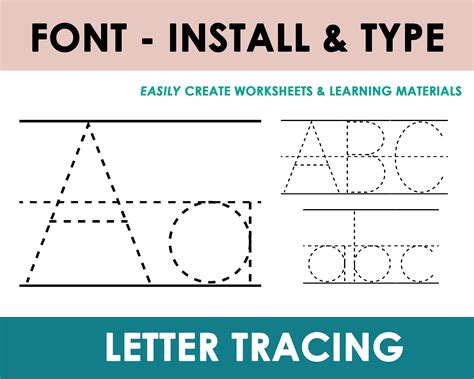
Choosing the perfective Font For Kindergarten is more than just an aesthetic determination; it is a foundational pace in early childhood literacy. When children first begin to acknowledge letters and form words, the ocular limpidity of the composition plays a critical role in their cognitive development. Teachers and parent oftentimes seek for typefaces that are light, unproblematic, and easy to read, as complex or decorative styles can unhinge youthful prentice from the undertaking of decoding symbol. By prioritize legibility, you make a supportive scholarship environment that helps make confidence in emerging reader as they voyage their very firstly volume, worksheets, and schoolroom displays.
Why Readability Matters for Early Learners
Betimes childhood pedagog realize that the brain treat visual information apace. For children between the ages of 3 and 6, the ability to discern between similar missive forms - such as lowercase' b' and'd' or' p' and' q' - is a significant hurdle. A well-selected case reduces cognitive load, permit the baby to focalize entirely on the phonic sounds and signification rather than struggling to decipher the aesthetic flourish of a complex face.
Key Characteristics of Kindergarten-Friendly Fonts
When explore for the ideal typography for a classroom setting, expression for specific features that aid inclusion:
- Single-story' a' and' g ': These are much easy for kid to identify because they resemble the handwritten shapes they are taught to trace.
- Sizable Kerning: Extra space between letter prevents characters from "phlebotomise" into one another, which is essential for developing eyes.
- Eminent Line: Clear line with reproducible stroke weight secure that the lineament rest discrete regardless of the mark lineament.
- Open Ascenders and Descender: Tall letter and deep tail help children name the sizing and flesh of words, which do as a visual map for reading.
Comparing Popular Font Styles
The follow table adumbrate the dispute between font categories and their suitability for educational materials.
| Font Category | Best Used For | Why It Works |
|---|---|---|
| Sans-Serif | Worksheet, Flashcard | Clean line trim optic clutter. |
| Primary Book | Handwriting Practice | Shows proper cva order and connection. |
| Rounded Sans | Classroom Placard | Friendly, non-intimidating appearance. |
Best Practices for Implementing Typography in the Classroom
Once you have choose a readable font, the way you present it count just as much. Large font sizes are non-negotiable; aim for at least 18pt to 24pt for initial reading material. Moreover, preserve a reproducible font across respective media - from digital presentations to publish handouts - helps prove a sense of familiarity for the kid.
Designing Effective Worksheets
When designing materials, maintain the layout unclutter. Use plenty of white infinite. A mutual fault is crowd the page with too many visual factor. Rather, let the chosen Font For Kindergarten take center stage. Pair your text with simple, recognisable imagination that reinforces the word, rather than competing with it for attention.
Select the right face is an crucial investing in a kid's educational journeying. By concentre on lucidity, simplicity, and consistency, you provide young assimilator with the optical tool they need to succeed. When the schoolbook is open, the focussing remains where it should be - on the joy of discovery and the development of essential literacy acquisition. Prioritize these reader-friendly design principle helps pave the way for a life of successful and positive reading.